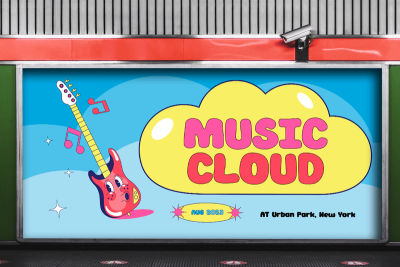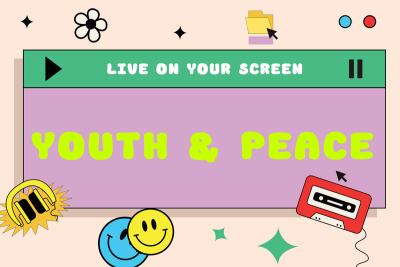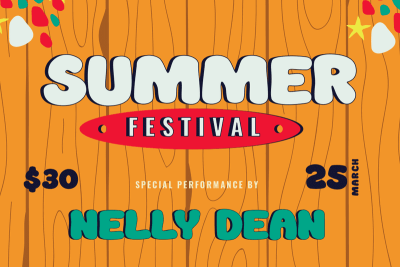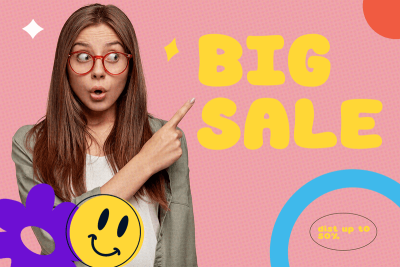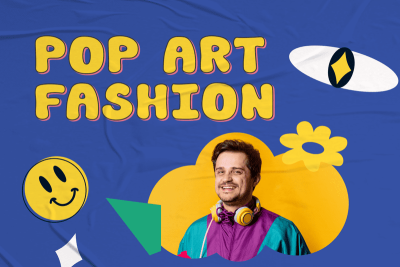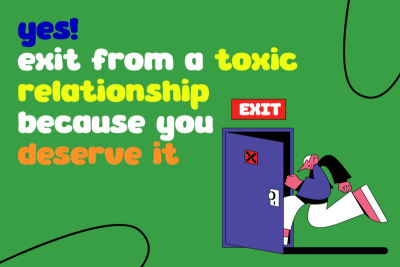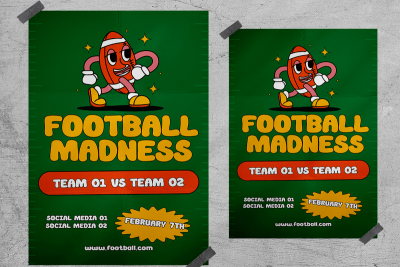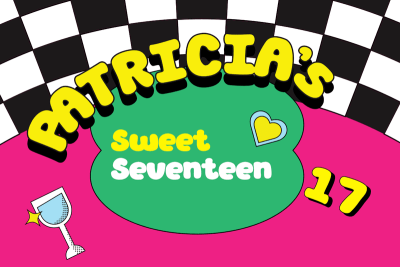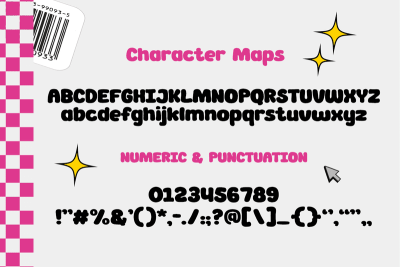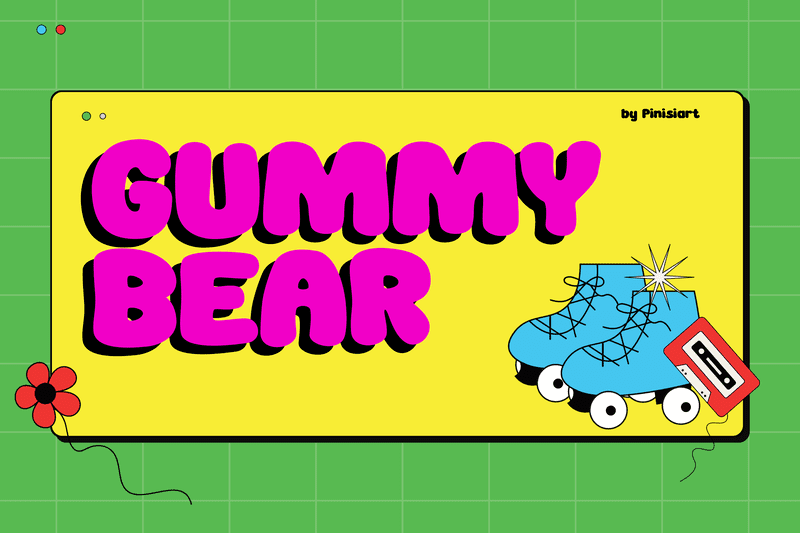
Bubble Font Gummy Bear is a bold, playful typeface that brings a nostalgic, retro feel to any design. Its rounded, chunky letterforms resemble gummy candy, giving it a sweet and charming appeal. Furthermore, the font’s vibrant and cheerful style grabs attention and creates a friendly atmosphere. Each letter has a bold outline and shadow effect, adding depth and a slight 3D quality. This feature not only enhances readability but also makes the text pop, even in bright colors.
In addition, this font combines a retro 80s vibe with a modern twist, adding personality and fun to various projects. Its playful style works well for designs aimed at younger audiences or anyone seeking whimsy and joy. The fontโs simple yet dynamic structure is versatile, making it easy to pair with other elements. Whether for digital graphics, print materials, or branding, it adds energy and excitement. Its cartoonish look fits seamlessly into designs that need personality and friendliness.
Bubble Font Gummy Bear Ideal for
Gummy Bear is especially ideal for projects targeting children, teens, or fans of retro aesthetics. Its playful look is perfect for kidsโ brands, educational materials, and products for young audiences. For example, itโs a great choice for toy packaging, childrenโs book covers, and fun apparel branding. Moreover, the font’s friendly style makes designs more appealing to both kids and parents.
Additionally, event planners and graphic designers can use this typeface to add a festive touch to materials. It works well for posters, banners, and invitations for family-friendly events, birthdays, and community gatherings. Its vibrant look creates an inviting atmosphere that draws people in and builds excitement.
Social media creators will also find this font perfect for adding a fun, vibrant look to their posts. It works well for YouTube thumbnails, Instagram posts, and TikTok graphics. Itโs especially suited for channels focused on entertainment, lifestyle, or creative tutorials. Its bold, colorful appearance captures attention in busy social media feeds, helping content stand out and leaving a memorable impression.
In summary, this font brings both fun and nostalgia to any design. Its cheerful, retro style appeals to childrenโs brands, event planners, and social media creators. Ultimately, itโs perfect for creating lively, bold, and memorable designs.